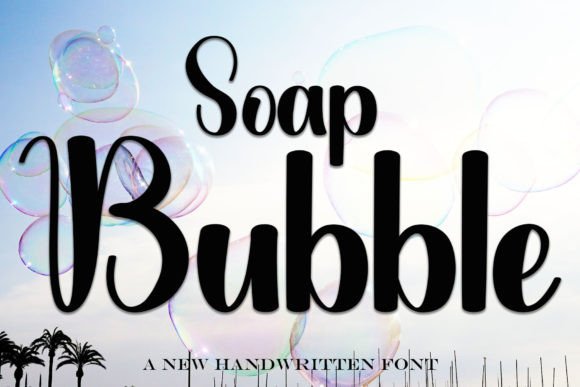
Introducing Soap Bubble Font, the ultimate font for all your tattoo script needs! Created by putrasyahreza00, this font family falls under the display category and is designed to make a lasting impression.
With its festive and merry vibe, Soap Bubble Font is the perfect addition to your holiday-themed projects. It captures the spirit of the holiday season, adding a touch of enchantment and whimsical flair to your designs. Imagine the joy and nostalgia it will bring to your greeting cards, gift tags, and other festive creations.
But what sets Soap Bubble Font apart from the rest? Its PUA encoding! This means you can effortlessly access all the amazing glyphs and ligatures that come with this font. Say goodbye to limitations and let your creativity run wild. With Soap Bubble Font, you have the power to create truly unique and captivating designs.
Every stroke of this font exudes the magic of Christmas. Its decorative elements and attention to detail make it a standout choice for any project. Whether you're looking to create a bold statement or add a subtle touch of elegance, Soap Bubble Font has got you covered.